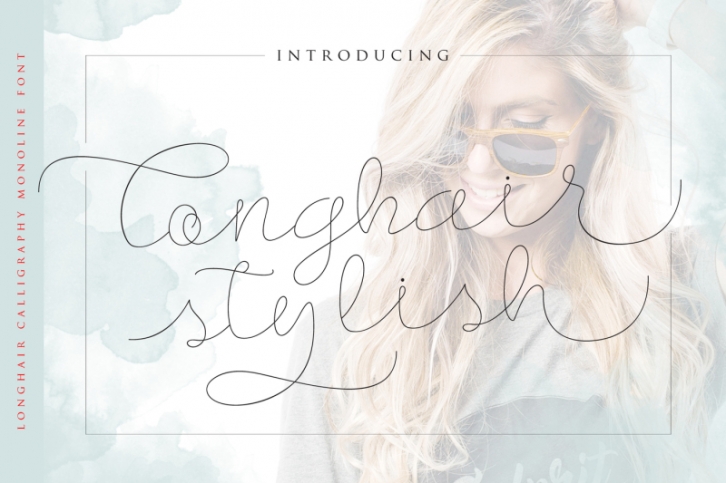
Introducing the elegant new Longhair Stylish - Monoline Script Font! For those of you who are needing a touch of elegance and modernity for your designs, this font was created for you!
Longhair Stylish - Monoline Script Font was built with OpenType features and includes beginning and ending swashes, numbers, punctuation, alternates and it also supports other languages.